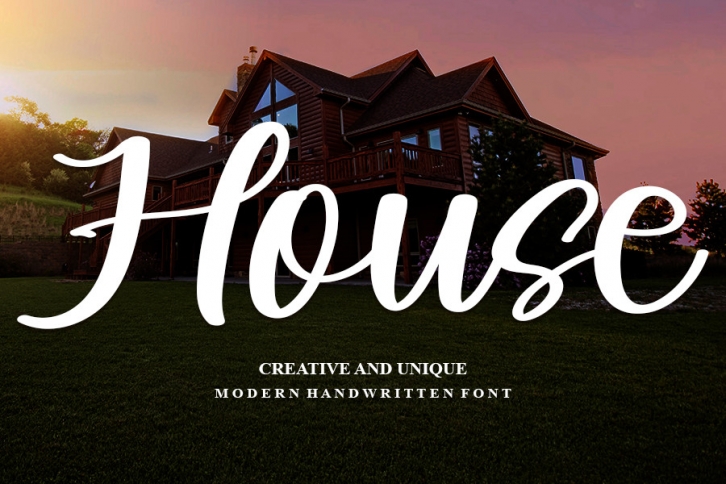
House is a beautiful and flowing handwritten font, designed with a lovely brush pen. It maintains its classy calligraphic influences while feeling contemporary and fresh. Fall in love with Hoot Coffee and bring your projects to the highest levels!